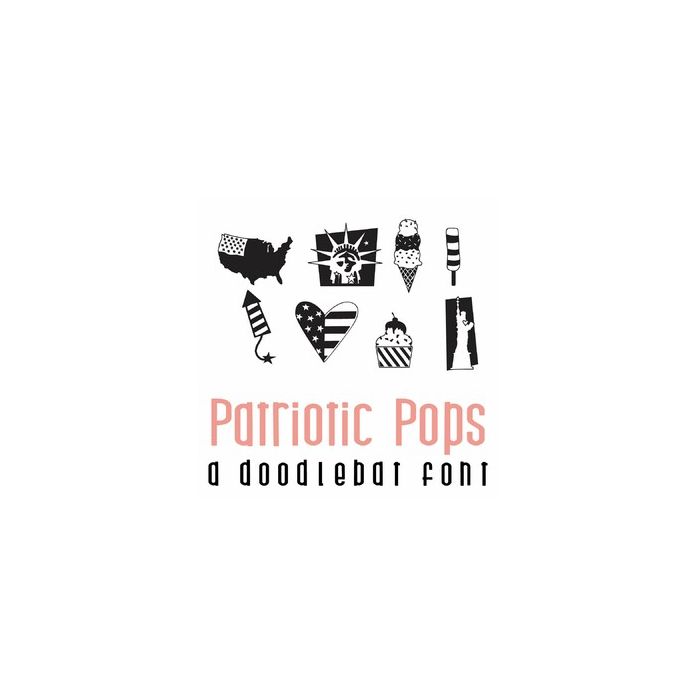
This fun doodlebat font features 26 patriotic images and summer treats. Perfect for cards, gifts, decor, crafts, scrap book pages, planner stickers and more!